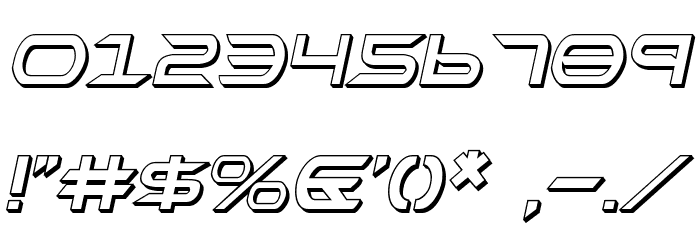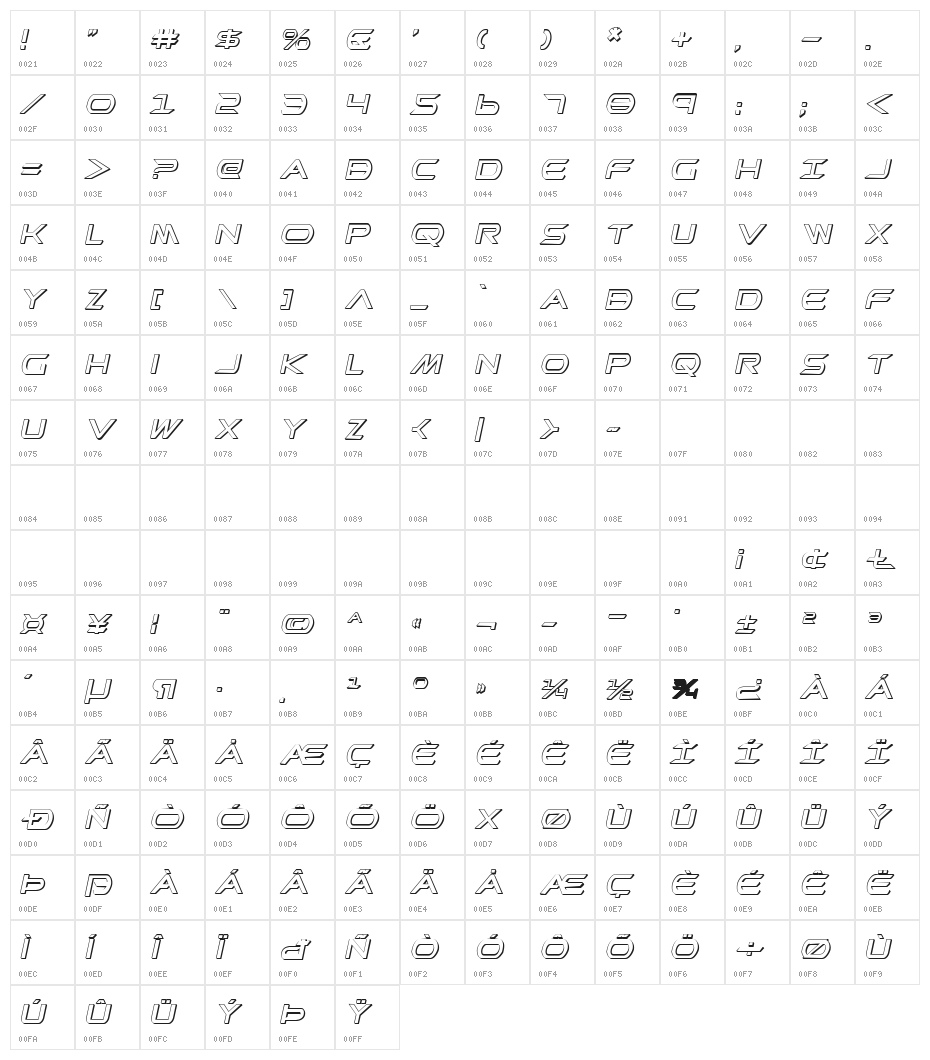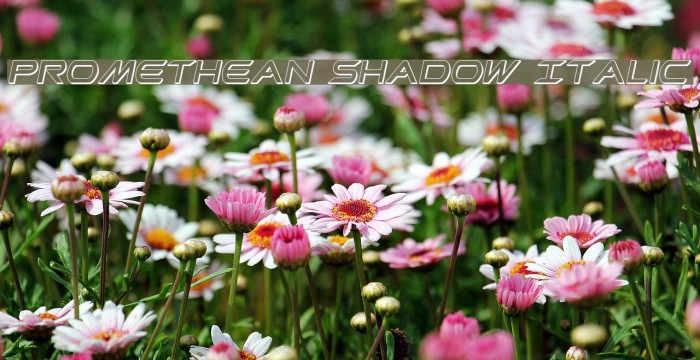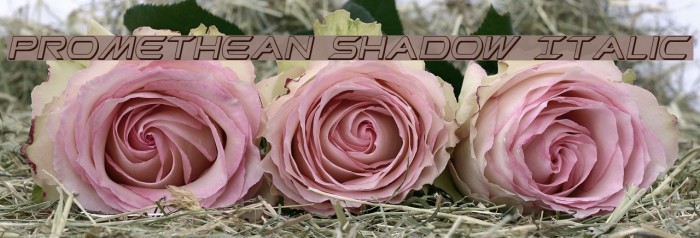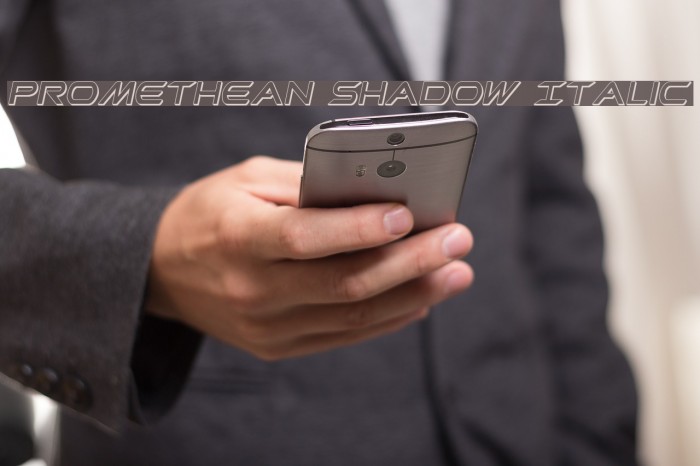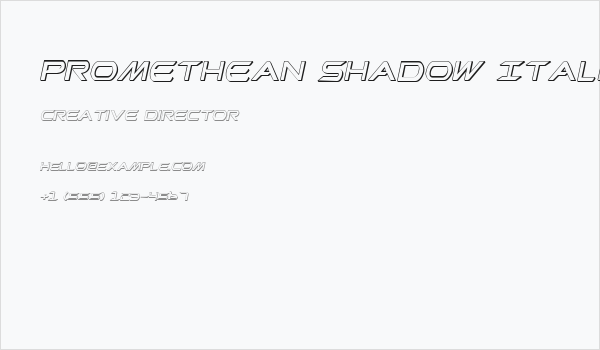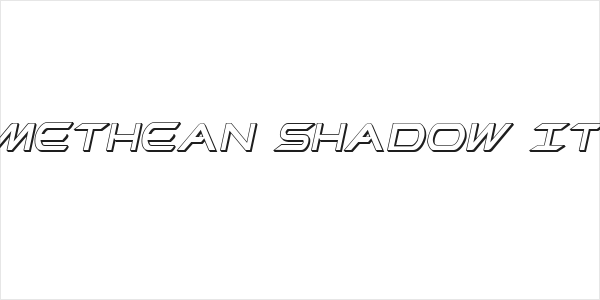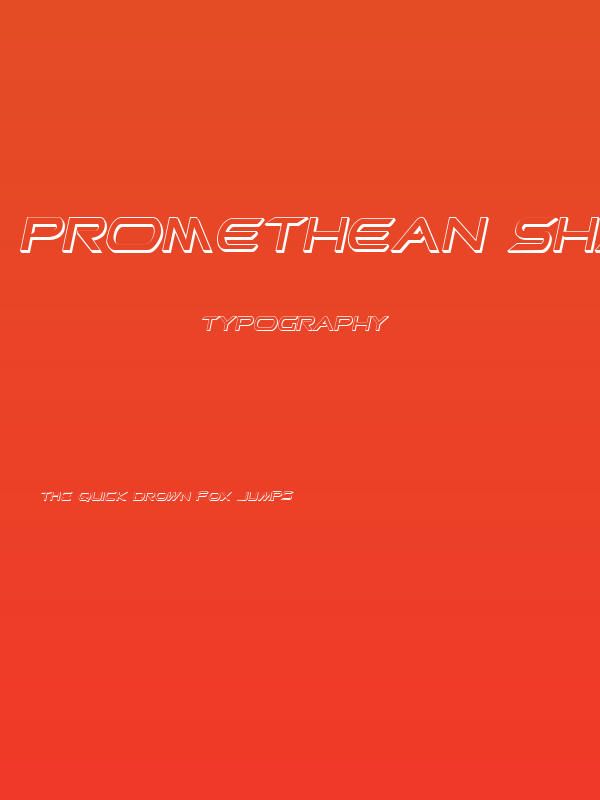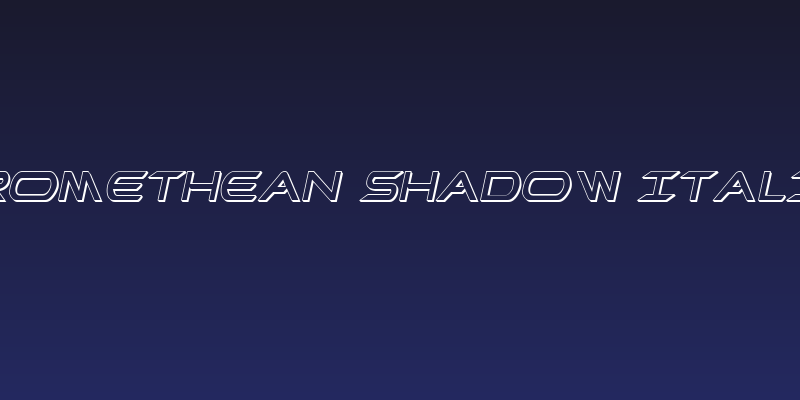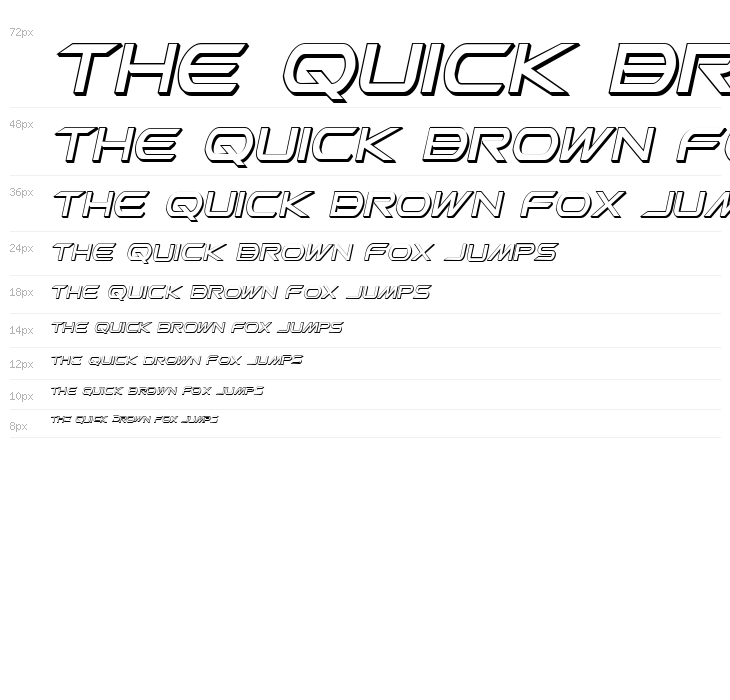
Promethean Shadow Italic Font
Promethean Shadow Italic Description
This font features a futuristic and dynamic design with a distinct italic slant, giving it a sense of motion and energy. The characters are outlined with a shadow effect, adding depth and a three-dimensional appearance. The geometric shapes and sharp angles contribute to its modern and edgy look. It maintains a consistent stroke width throughout, which enhances its clean and sleek aesthetic. The font's unique style makes it stand out, suitable for projects that require a bold and innovative visual impact.
| Proposed Projects | Ideal for sci-fi themed designs, video game titles, technology branding, and modern posters. |